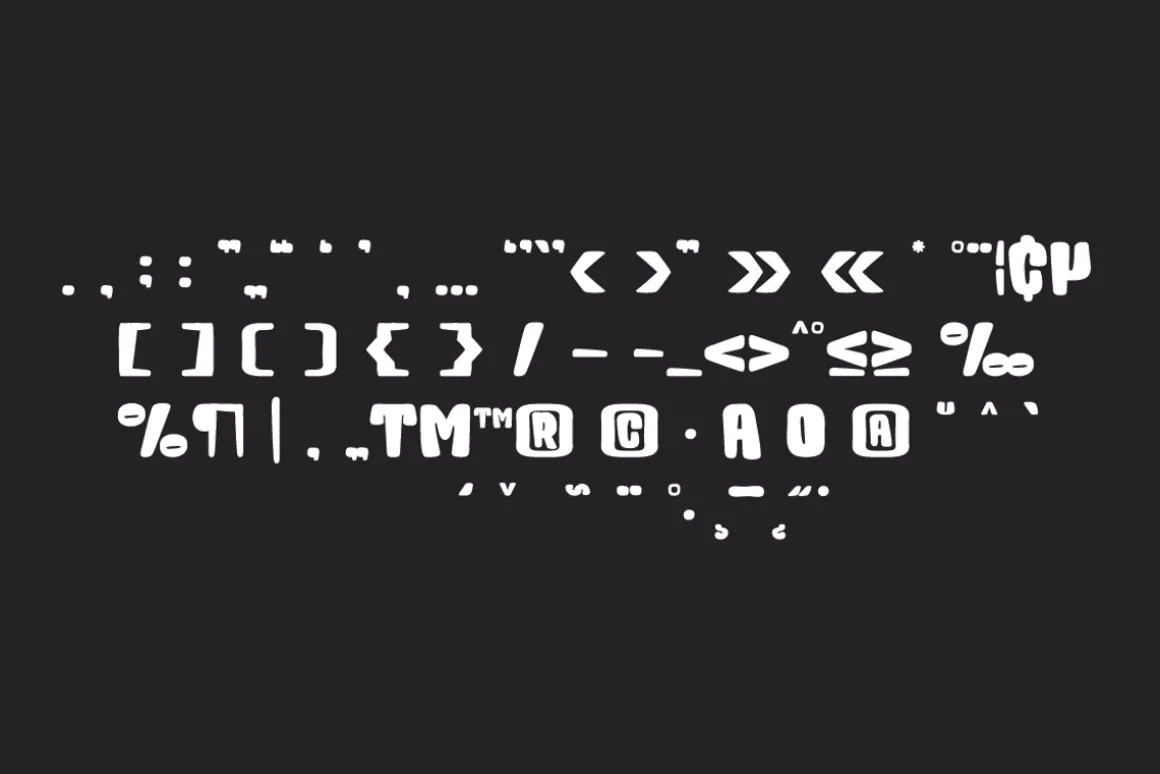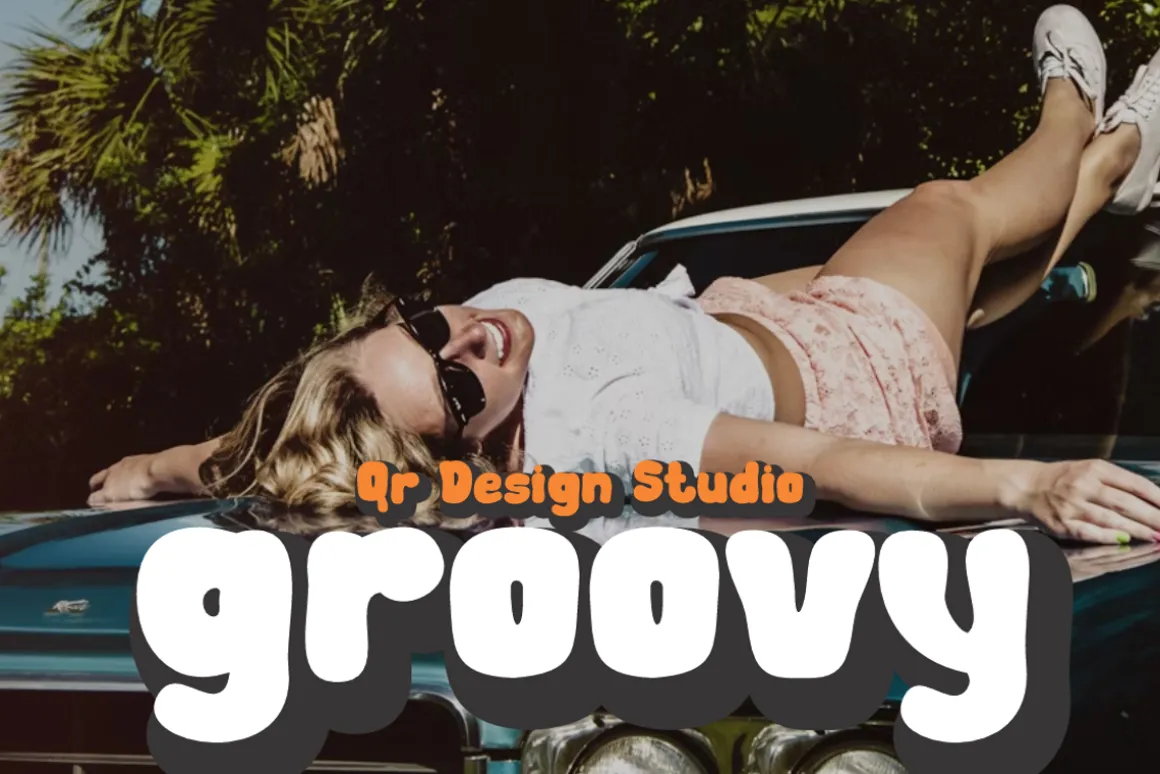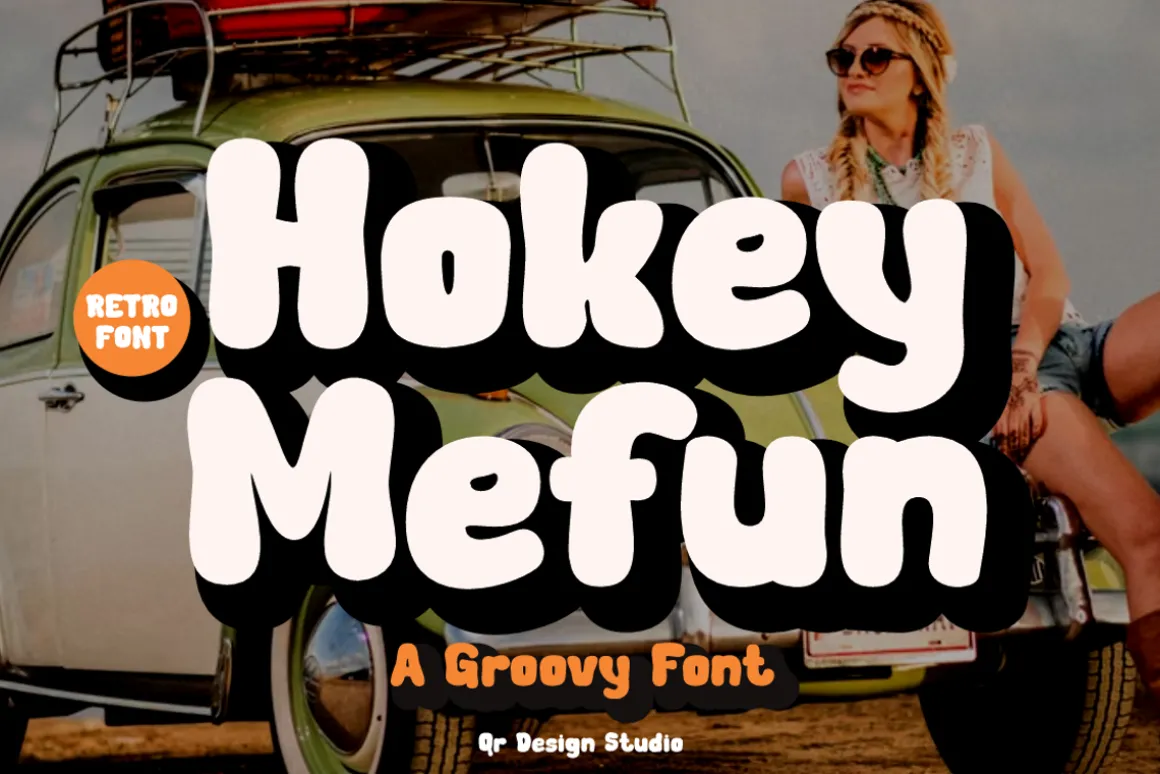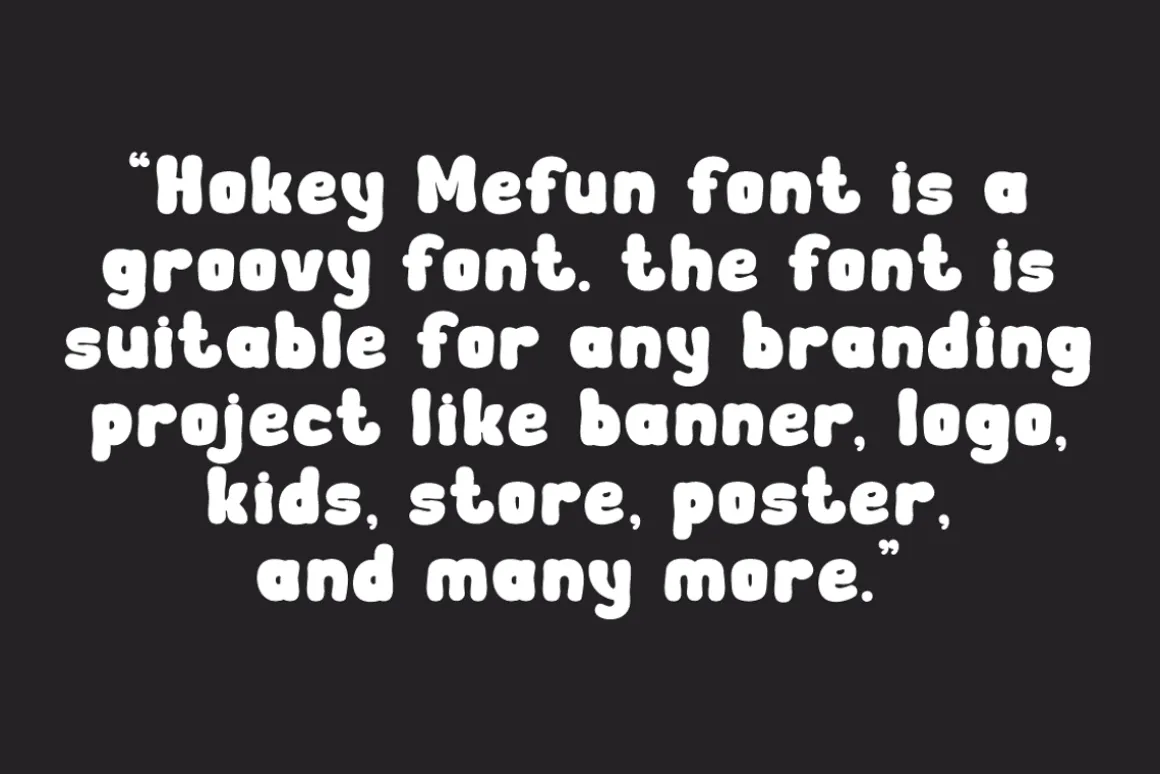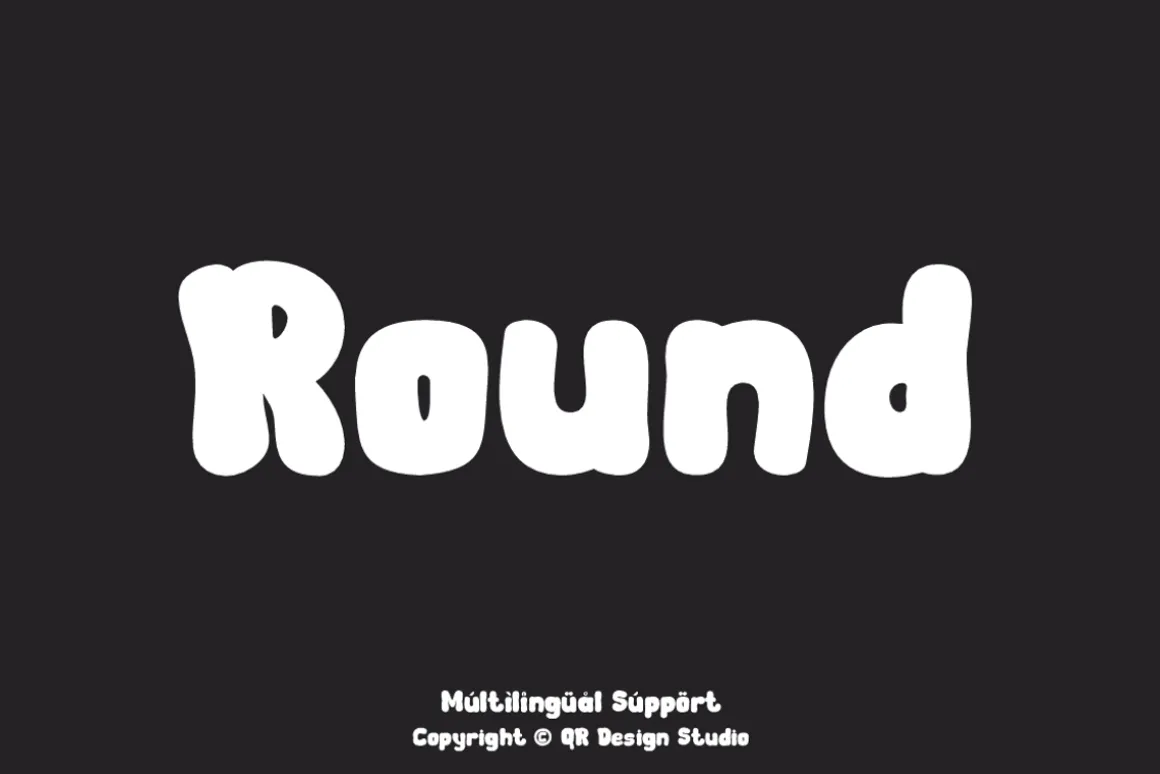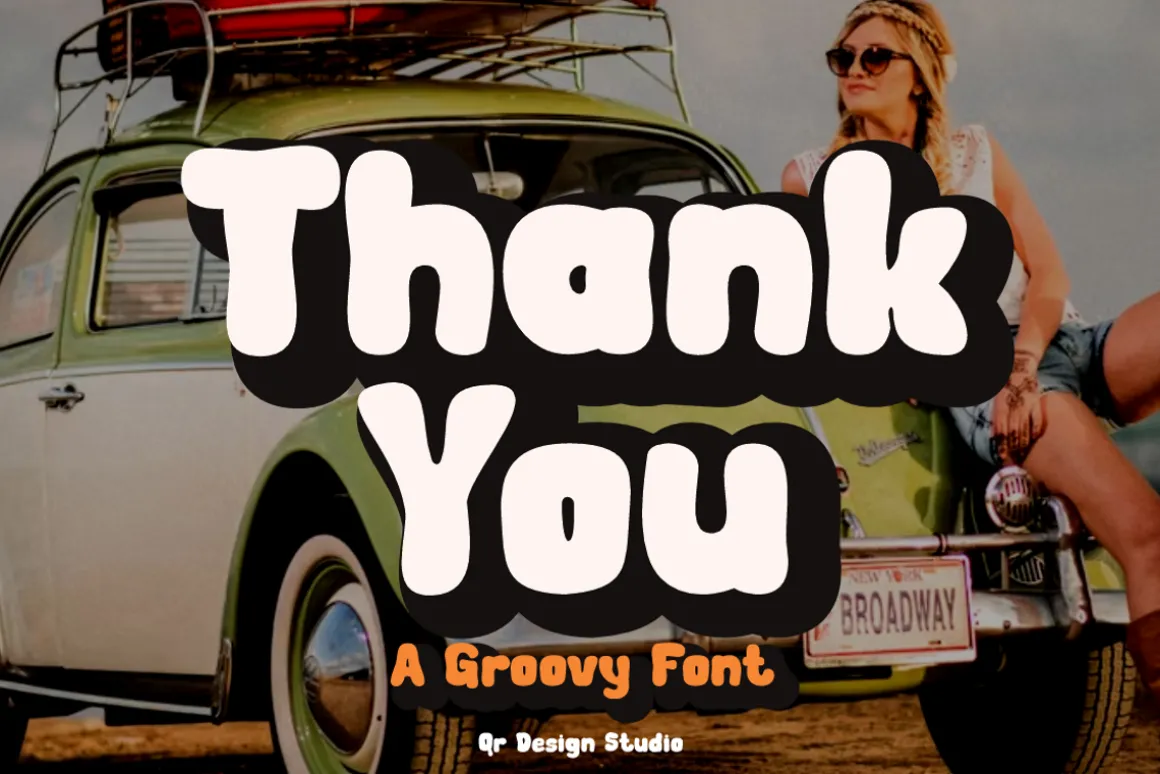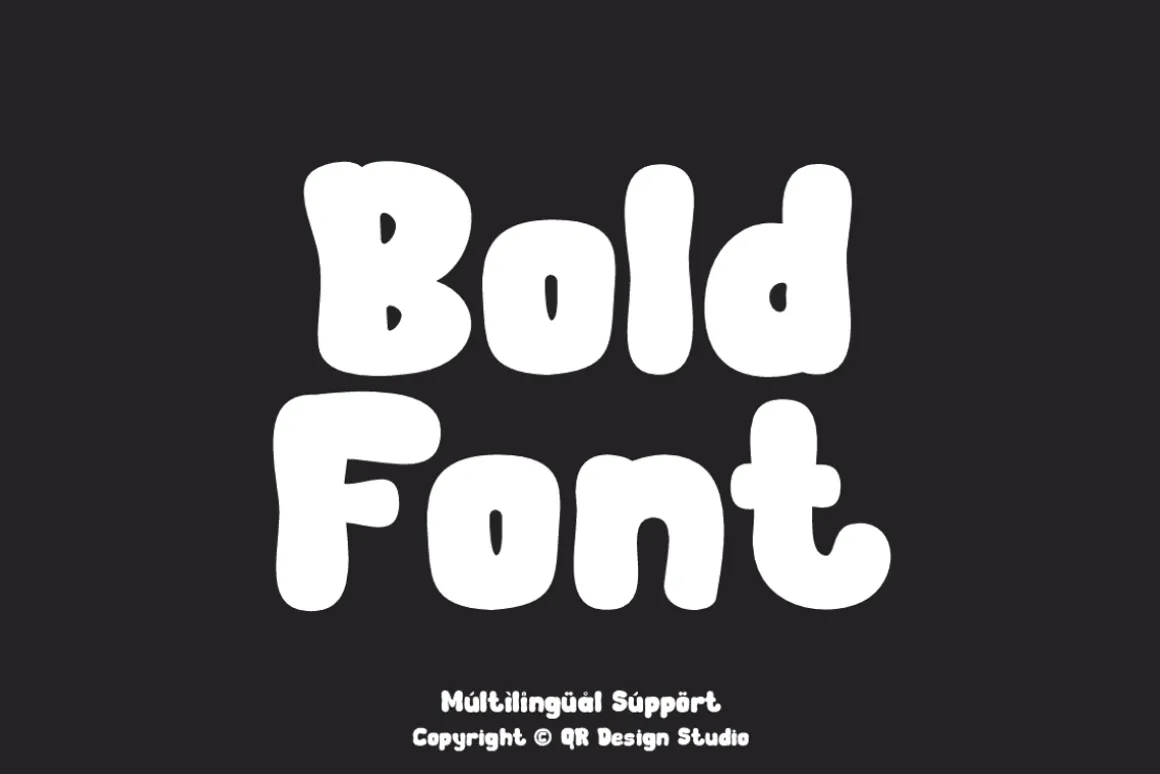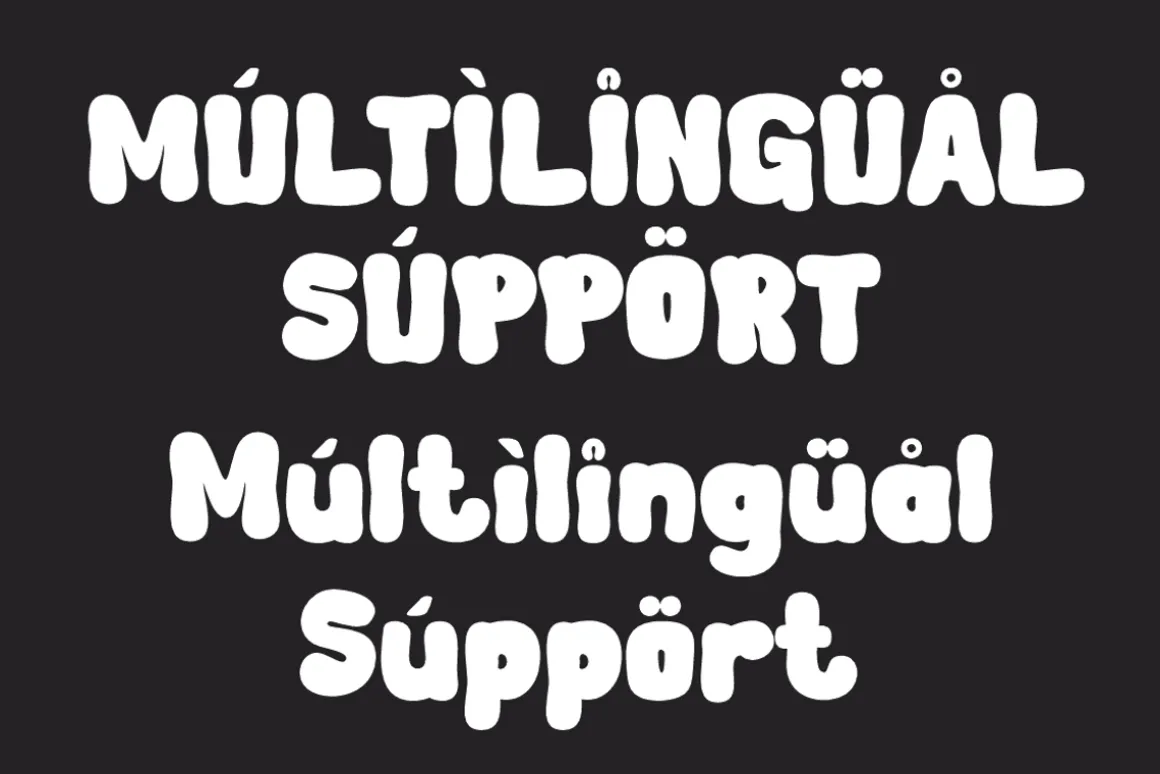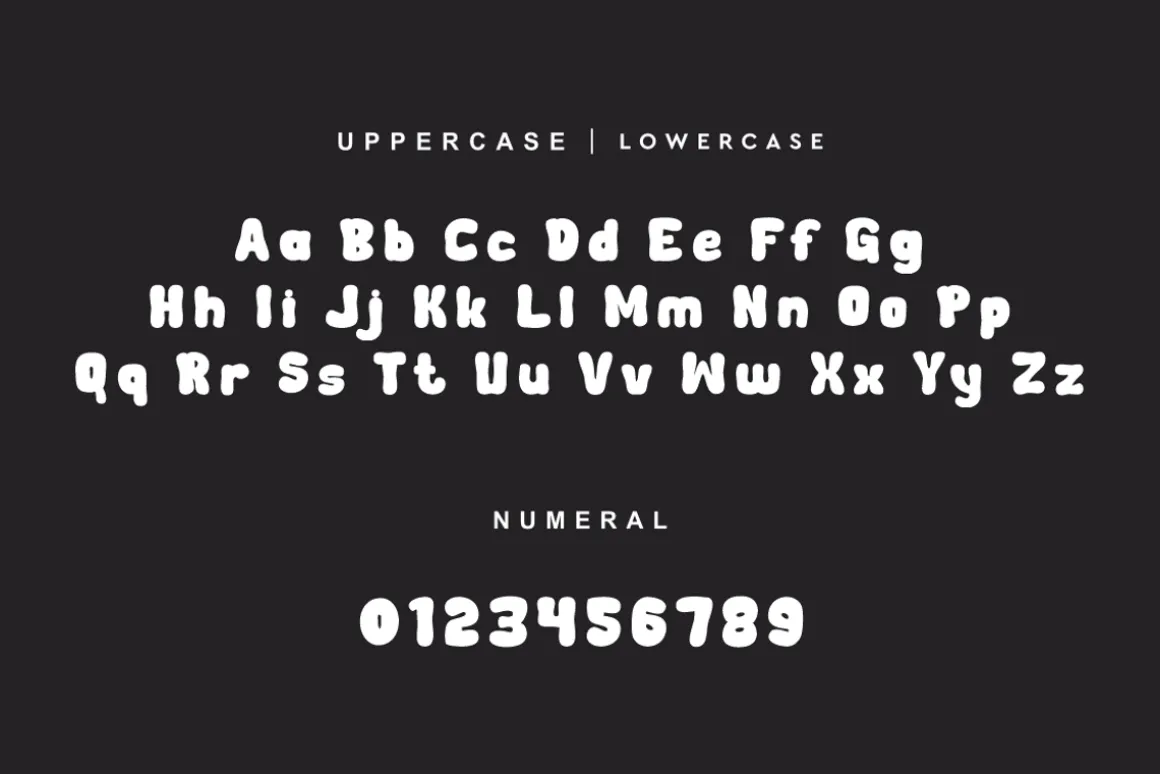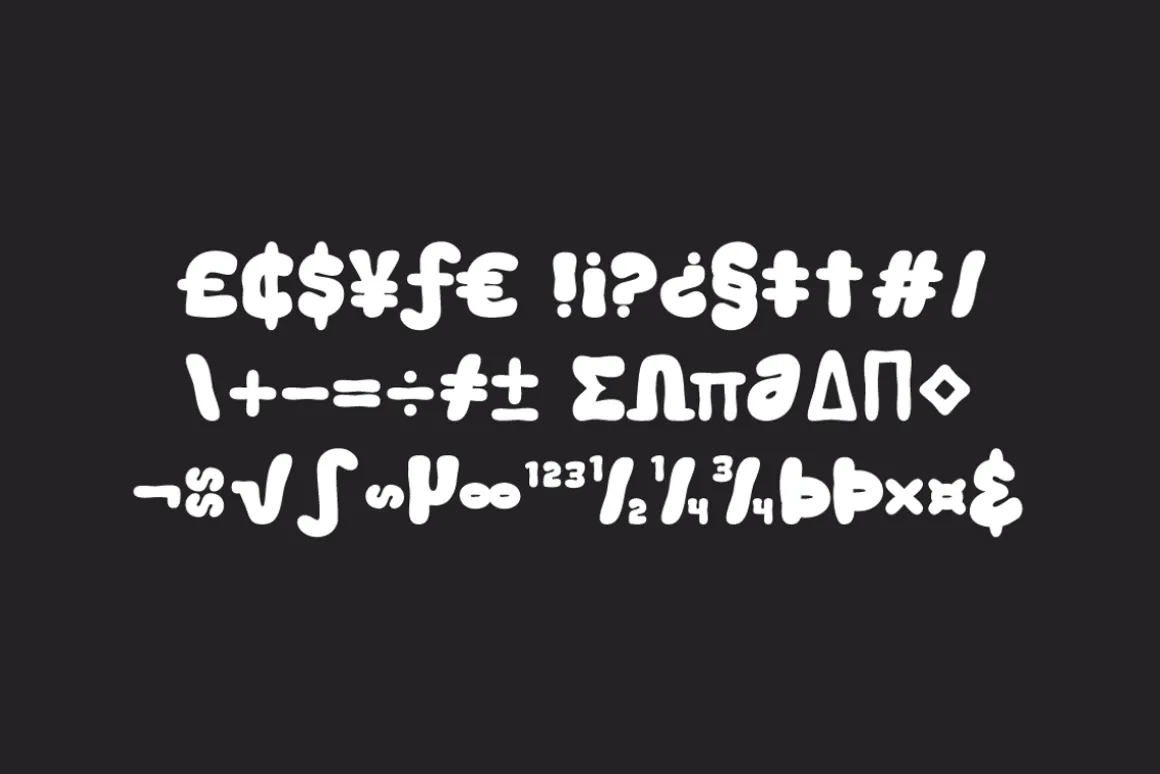
Hokey Mefun Font is a groovy and authentic display font.The font is suitable for any branding project like poster, logo, kids, and many more.Outstanding in a wide range of contexts.